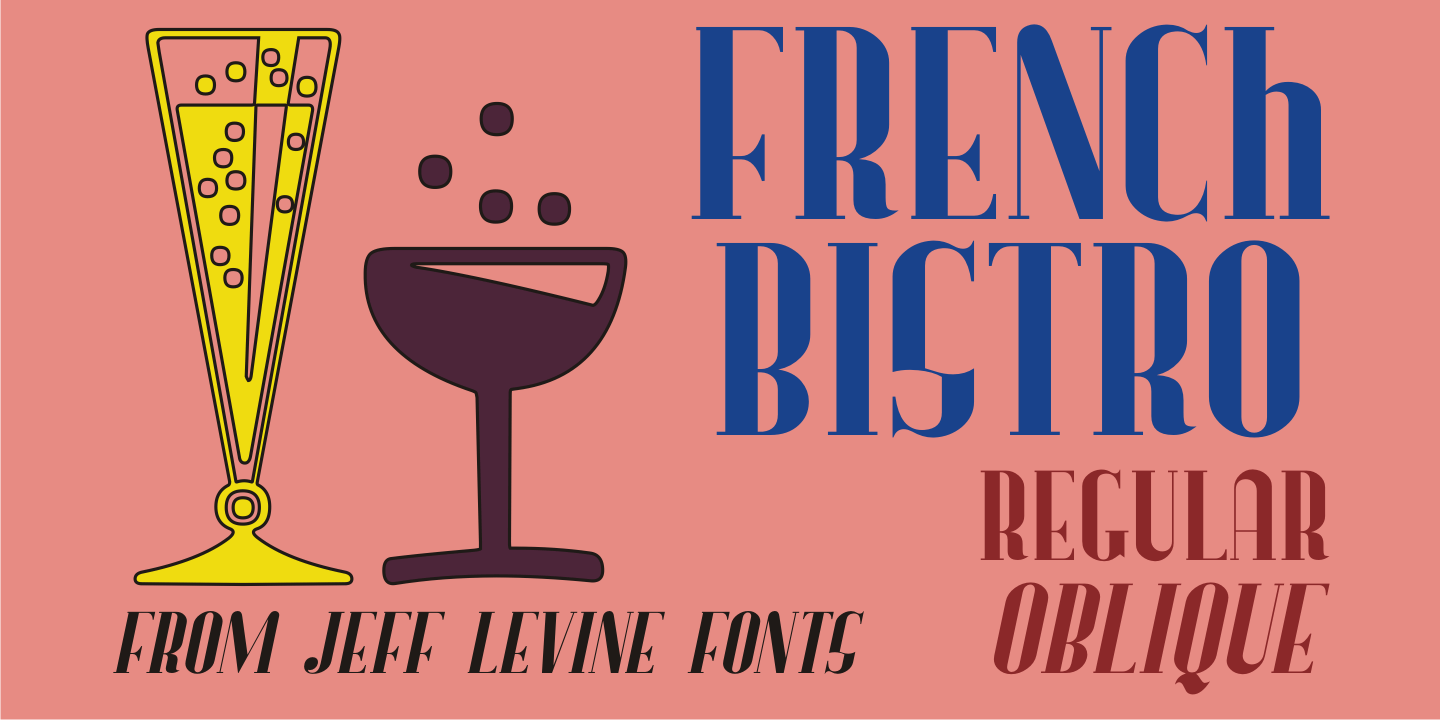
French Bistro
Buy NowThe 1930s French publication L'Art du Tracé Rationnel de la Lettre was a treasure trove of font revival ideas from the Art Deco era. One example featured a serif typeface with a number of stylized characters.
This is now available as French Bistro JNL, in both regular and oblique versions.